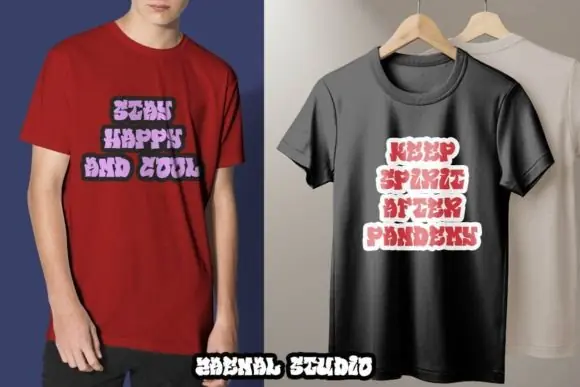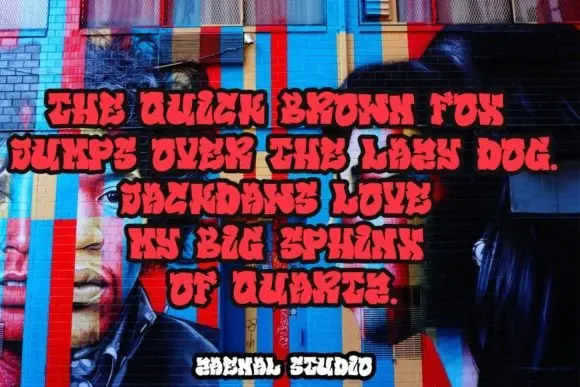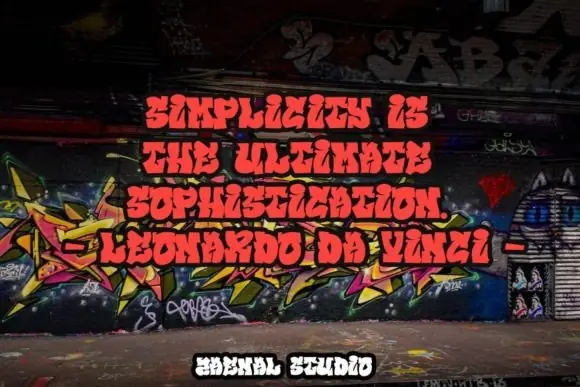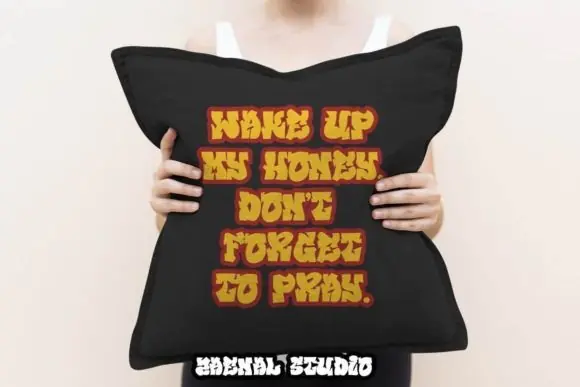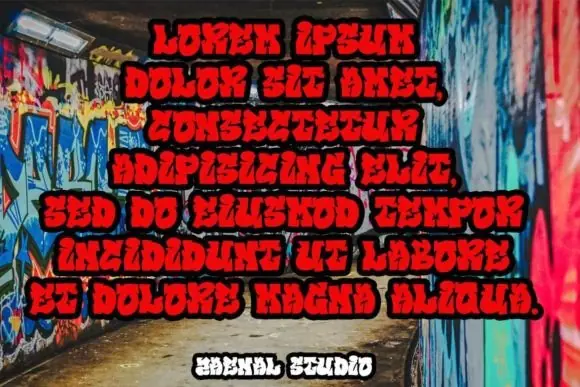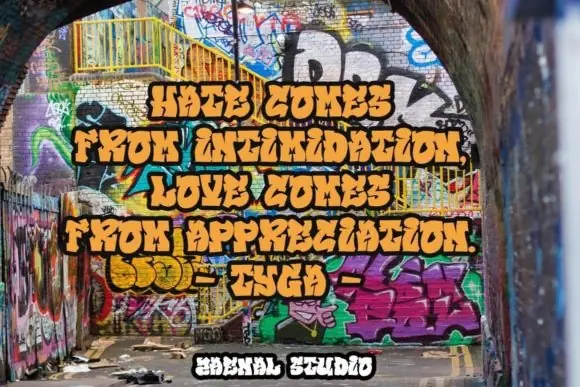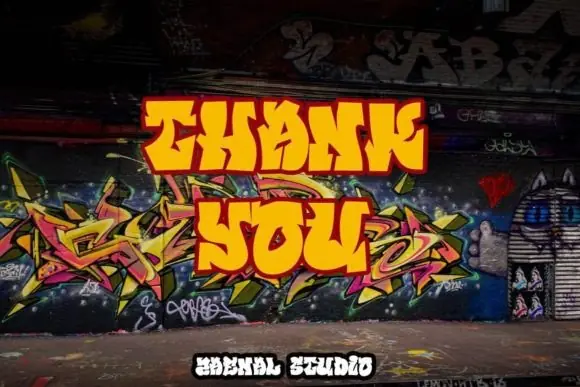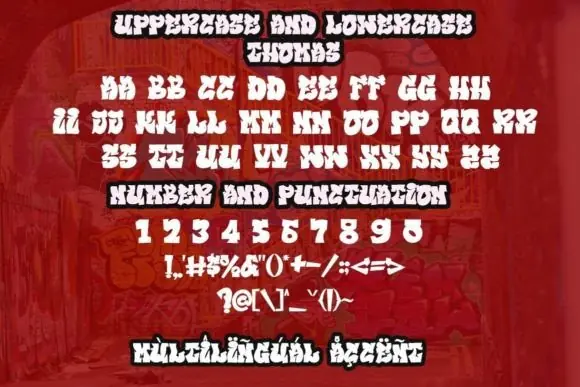
Thomas Font | Fun Graffiti Display Typeface with Alternates for Logos, Branding, Games, Cartoons, Posters & Cool Urban Designs
Create bold, playful, and modern designs with Thomas Font, a unique graffiti display typeface made for eye-catching creative projects. With its fun street-art style and cool modern personality, this font is perfect for designs that need to stand out with energy, character, and originality.
Thomas Font is especially useful for brand and logo designs, game graphics, cartoon-style artwork, posters, social media graphics, apparel designs, stickers, and digital creative projects. Its graffiti-inspired display style gives your typography a fresh urban look while keeping it playful and visually memorable.
This font also includes various alternates, giving you extra flexibility to create more unique lettering combinations and custom-looking designs. Whether you are designing a game title, cartoon logo, youth brand identity, streetwear graphic, or bold promotional artwork, Thomas Font helps your project feel modern, cool, and expressive.
• Logo design
• Branding projects
• Game titles and game graphics
• Cartoon designs
• Graffiti-style posters
• Streetwear designs
• T-shirt and hoodie graphics
• Stickers and labels
• Digital artwork
• Youth-focused designs
• Urban merchandise
• Creative headlines
• Print-on-demand products
Design Style:
Graffiti, fun, unique, modern, cool, urban, playful, bold, cartoon-style, creative, expressive, and attention-grabbing.
Use Thomas Font to create standout typography with a fun graffiti personality and give your designs a modern street-style edge.